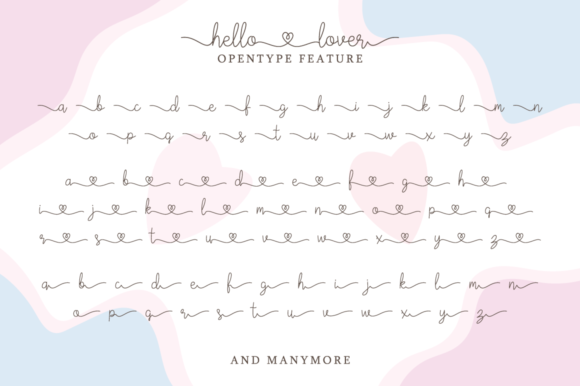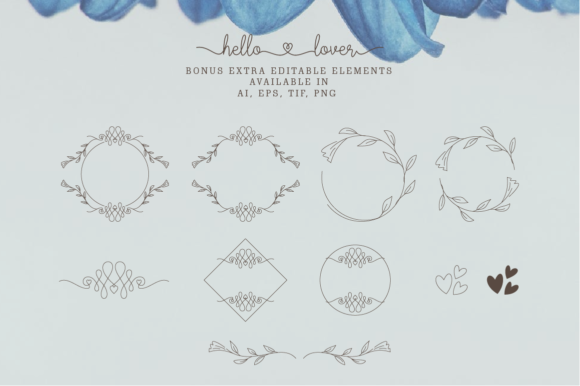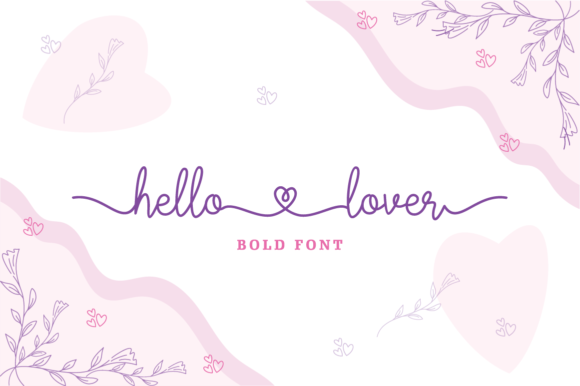
About Hello Lover Font
Hello Lover is a refined and graceful handwritten font that exudes elegance and sweetness. With its versatile style, this script font can be used in a wide range of design applications, from greeting cards and invitations to headlines and branding materials.
The romantic feel of Hello Lover adds a touch of sophistication and charm to any project. Its delicate letterforms and flowing strokes create a sense of grace and beauty, making it particularly suitable for wedding invitations, love-themed designs, and any project that aims to evoke a romantic atmosphere.
Hello Lover’s PUA encoding ensures easy access to its beautiful glyphs and swashes. This means you can easily incorporate decorative elements, alternate letterforms, and unique flourishes into your designs, enhancing their visual appeal and adding a personal touch. Whether you want to adorn your typography with swashes or create custom letter combinations, Hello Lover provides the flexibility to do so effortlessly.
The adaptability of Hello Lover allows it to work well in both small and large sizes. It retains its legibility and elegance, making it suitable for various design elements such as headlines, logos, branding materials, packaging, and more. The font’s versatility ensures that it can be seamlessly integrated into different design styles and themes.
The refined and graceful nature of Hello Lover sets it apart, making it an excellent choice for projects that require an element of sophistication and romance. Its timeless appeal ensures that it can be used for both contemporary and classic designs, adding a touch of elegance and allure.
In summary, Hello Lover is a refined, sweet, and graceful handwritten font that adds a romantic feel to any project. With its versatile style and PUA encoding, it offers a wide range of design possibilities, allowing you to create beautiful and personalized typography. Whether you’re designing wedding invitations, greeting cards, headlines, or branding materials, Hello Lover is sure to bring an elegant and romantic touch to your next project.